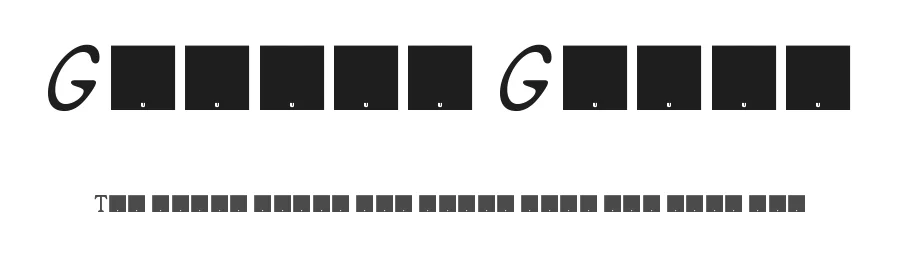
About Contra Font
Contra is a serif font designed by Apostrophic Labs. It includes 244 glyphs, a regular weight, TTF (TrueType) format, and 216 languages. Contra is free to download; check the license details on this page before commercial use. Serif fonts like Contra work best for body text, editorial layouts, book covers, and classic branding.
Contra Font is a versatile serif font that works for both headings and body text. Pair it with a contrasting sans-serif or slab serif font to add visual interest and a clear distinction between titles and body copy.
Contra Font
Contra Font is a serif typeface by Apostrophic Labs, ideal for logos, invitations, branding, and creative projects.